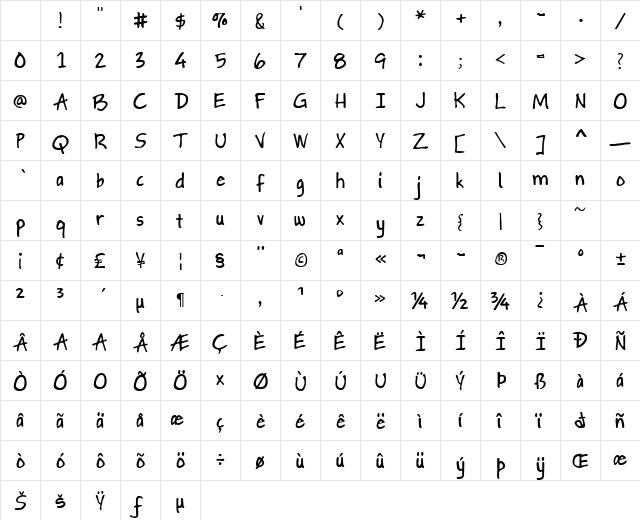
Complete Gapstown AH Regular glyph index. Displaying only characters natively supported by Gapstown AH Regular font.
Gapstown AH is a composed and adaptable typeface that performs quietly and consistently across a wide range of design contexts.